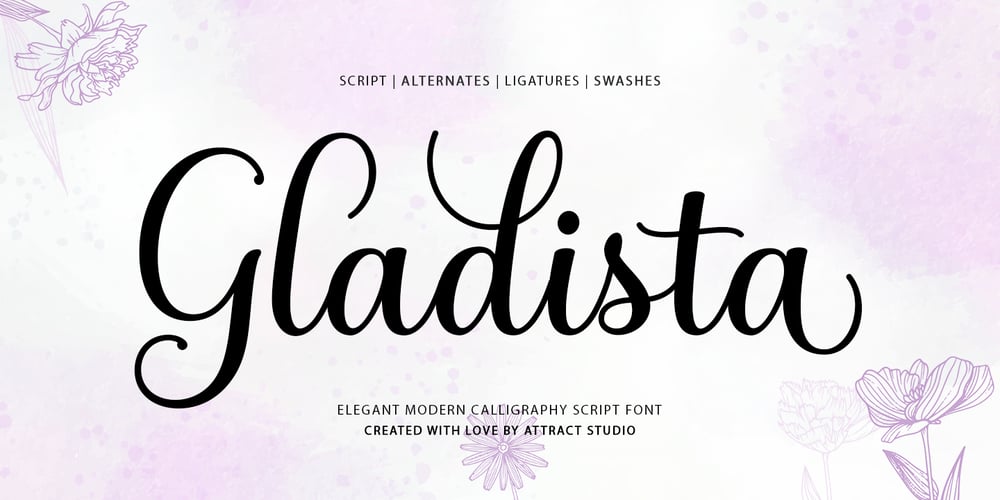
Gladista Script Font Family was designed by Muammar Kadafi and published by Attract Studio. Gladista Script contains 3 styles and family package options. Gladista is a calligraphy script font that comes with lovely alternates character. a mixture of from copperplate calligraphy with handlettering style. Designed to convey style elegance. Gladista is attractive like a smooth, clean, feminine, sensual, glamorous, simple and highly legible typeface. Its classic style is perfect to be applied in any type of formal pieces such invitations, labels, menus, Logos, fashion, make up, stationery, letterpress, romantic novels, magazines, books, greeting / wedding cards, packaging, labels.Gladista features 360+ glyphs and 155 alternative characters. including multiple language support. With OpenType features with stylistic alternates, ligatures and swash characters, that allows you to mix and match pairs of letters to fit your design, and also a touch of ornament makes this font look elegant.To enable the OpenType Stylistic alternates, you need a program that supports OpenType features such as Adobe Illustrator CS, Adobe Indesign & CorelDraw X6-X7, Microsoft Word 2010 or later versions. (Windows), Font Book (Mac) or a software program such as PopChar (for Windows and Mac).How to access all alternative characters using Adobe Illustrator:https://www.youtube.com/watch?v=XzwjMkbB-wQHow to use stylistic sets fonts in Microsoft Word 2010 or later versions:https://www.youtube.com/watch?v=NVJlZQ3EZU0There are additional ways to access alternates / swashes, using the Character Map (Windows), Nexus Font (Windows) Font Book (Mac) or a software program such as PopChar (for Windows and Mac).How to access all the alternative characters, using the Windows Character Map with Photoshop:https://www.youtube.com/watch?v=Go9vacoYmBwIf you need help or advice, please contact me by e-mail.